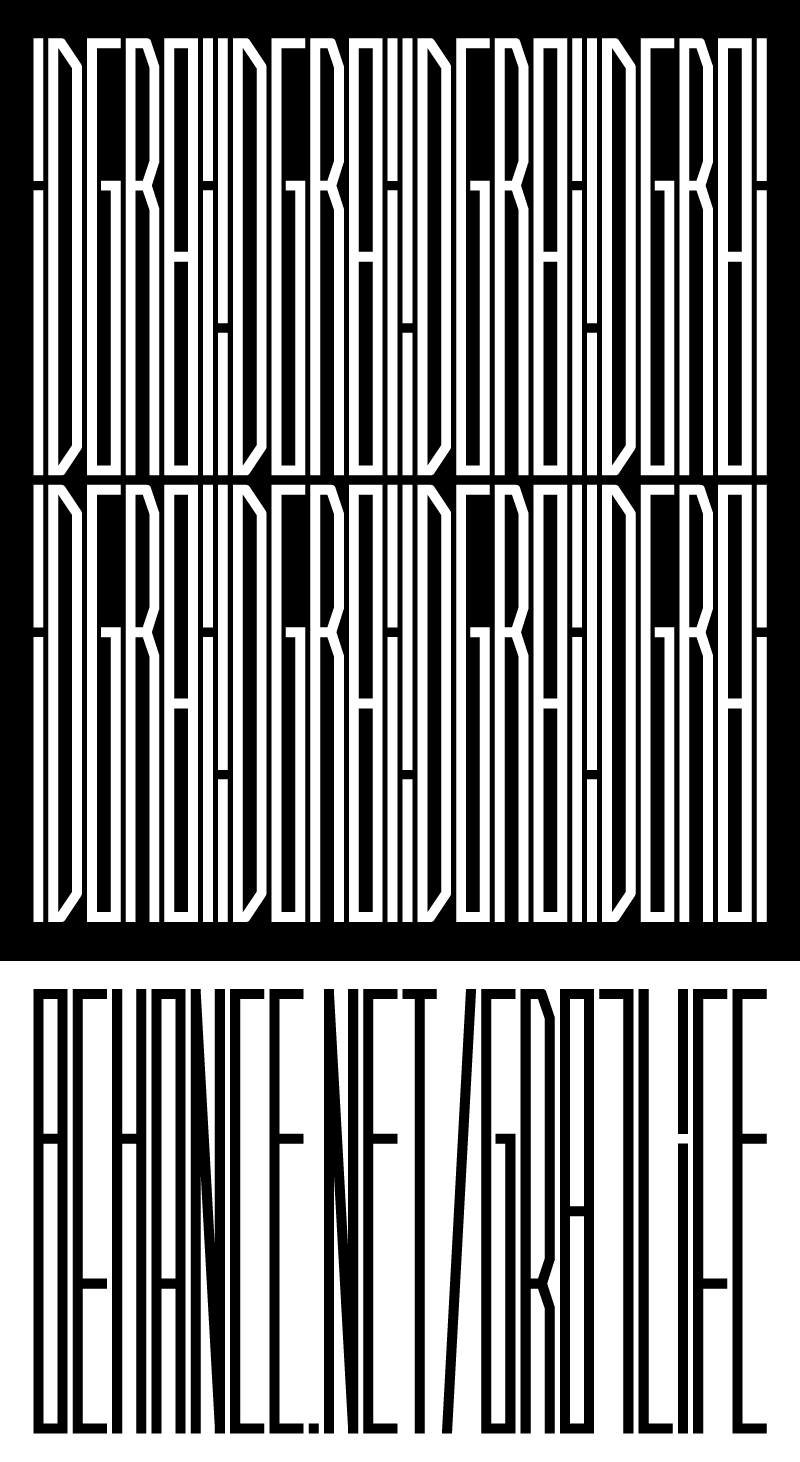
Preview and download #iD Font. Created by Gr81 Life in Techno Square styles with Free for personal use license.
- typeface visualization - #iD is barcode Inspired. Enjoy the future of typeface. Please do not alter or modify the characters. Please do not use commercially. GR8@ http://bit.ly/17JqCs3 |